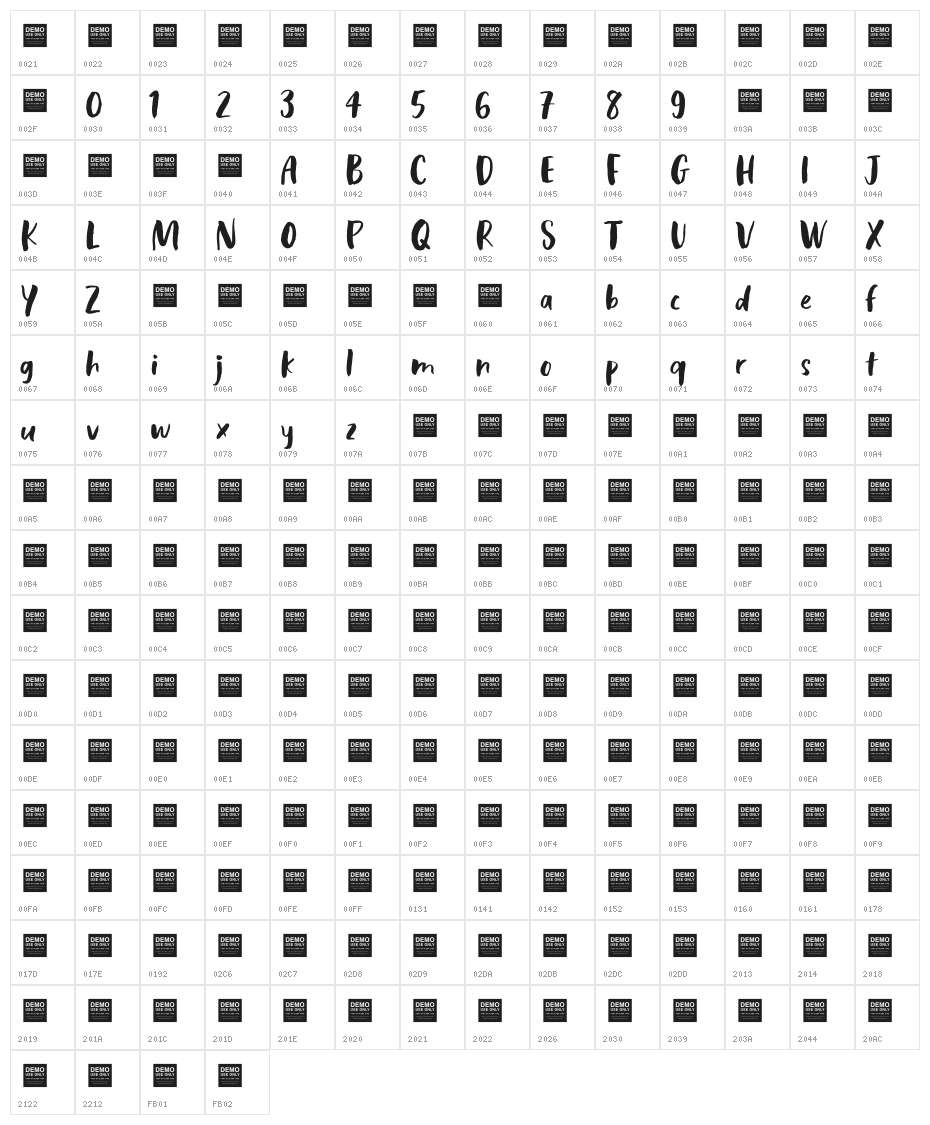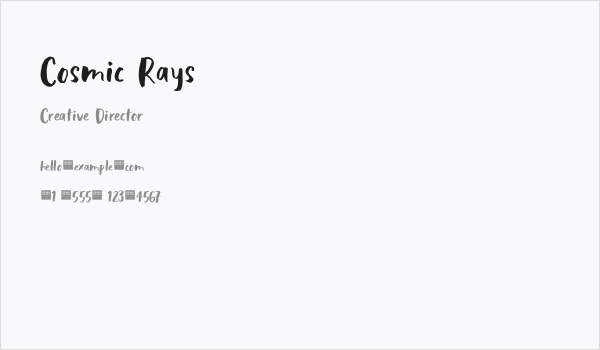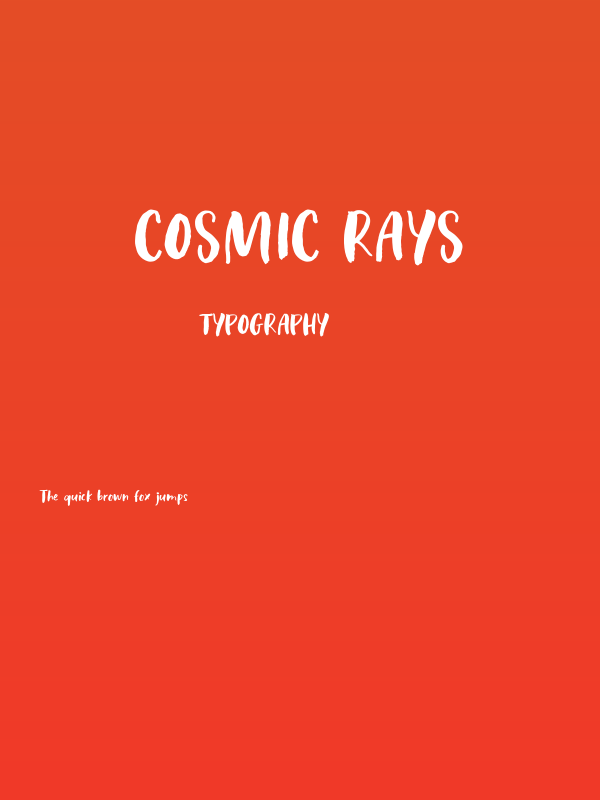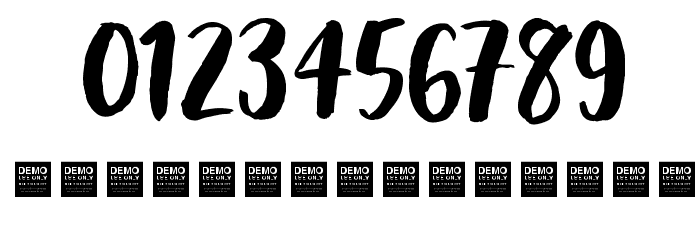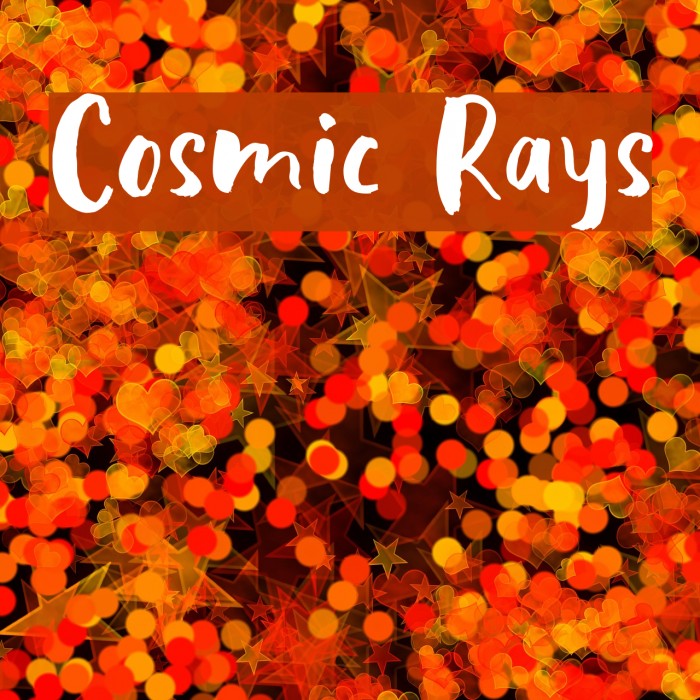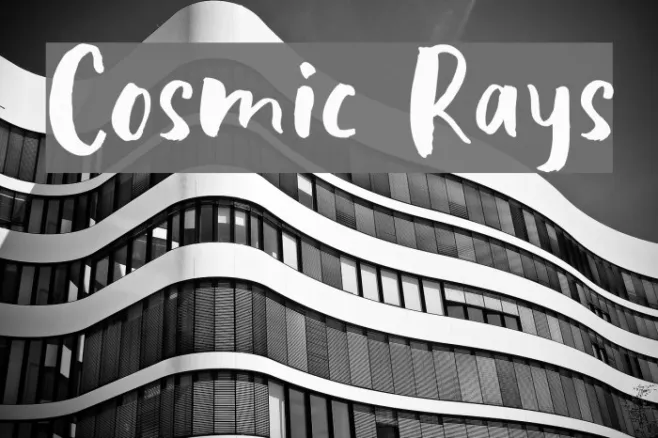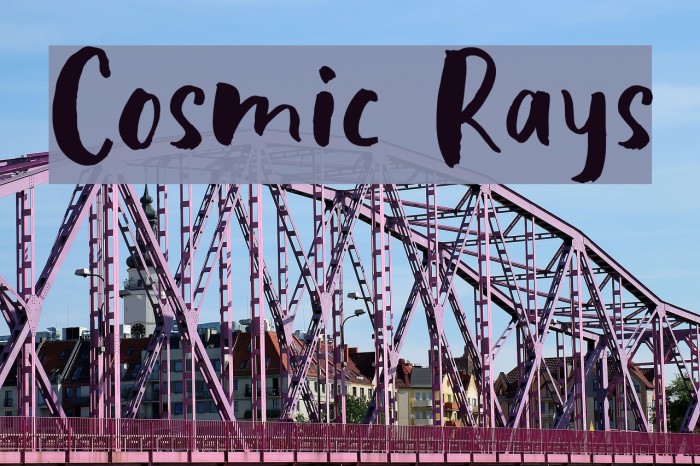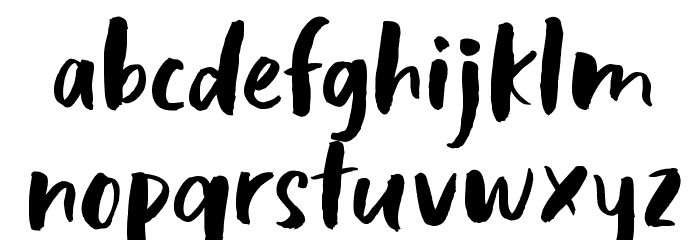
Cosmic Rays Font
Cosmic Rays Description
This font features a bold, brush-like appearance with a hand-painted style. The strokes are thick and expressive, giving it a dynamic and energetic feel. The uppercase and lowercase letters maintain a consistent style, with slight variations that add a personal touch. The numbers are equally bold, matching the overall aesthetic. This font is perfect for projects that require a lively and artistic flair, such as posters, branding, or social media graphics. Its unique style stands out, making it ideal for capturing attention and conveying creativity.
| Proposed Projects | Ideal for posters, branding, social media graphics, and creative projects. |